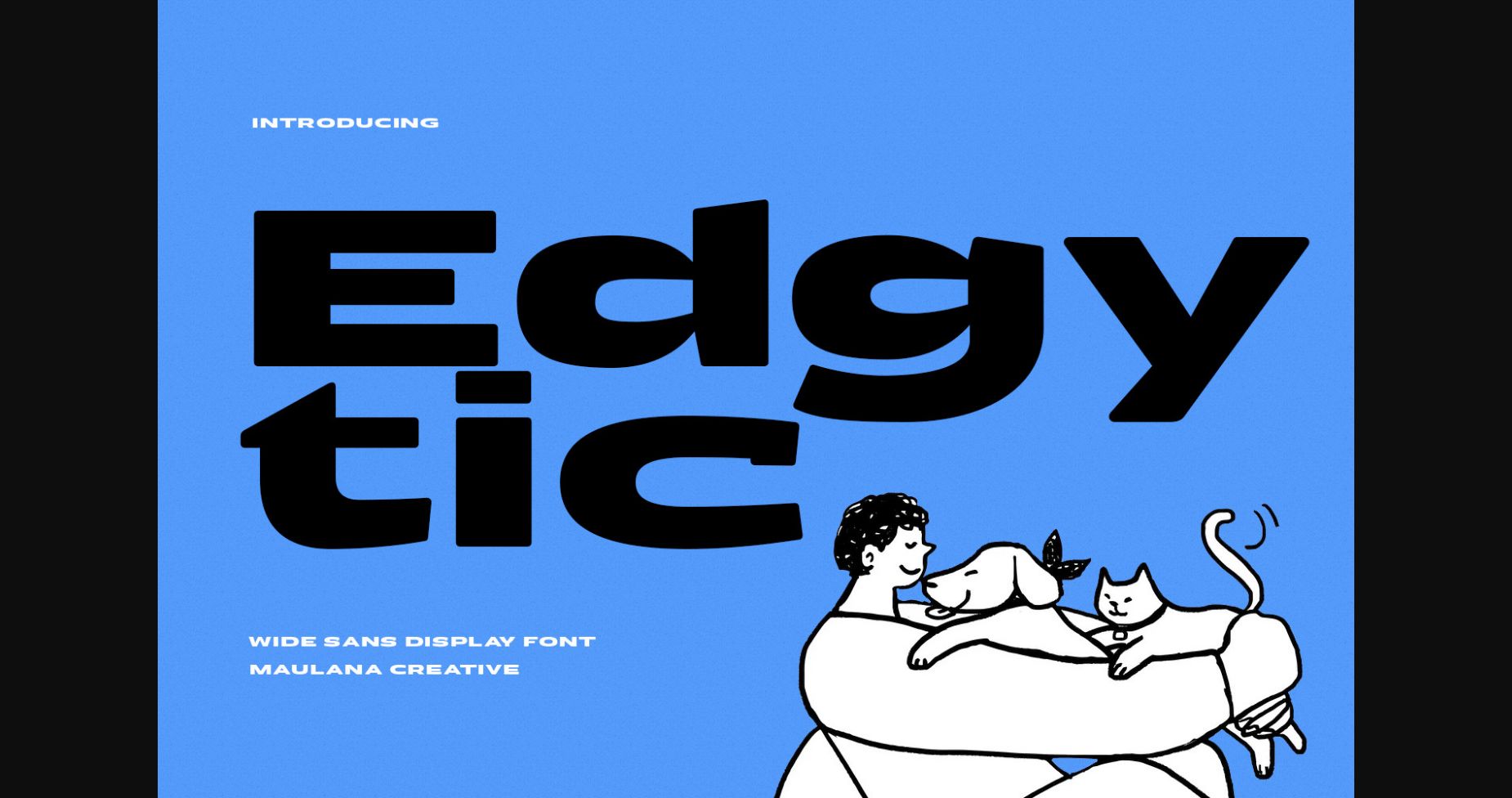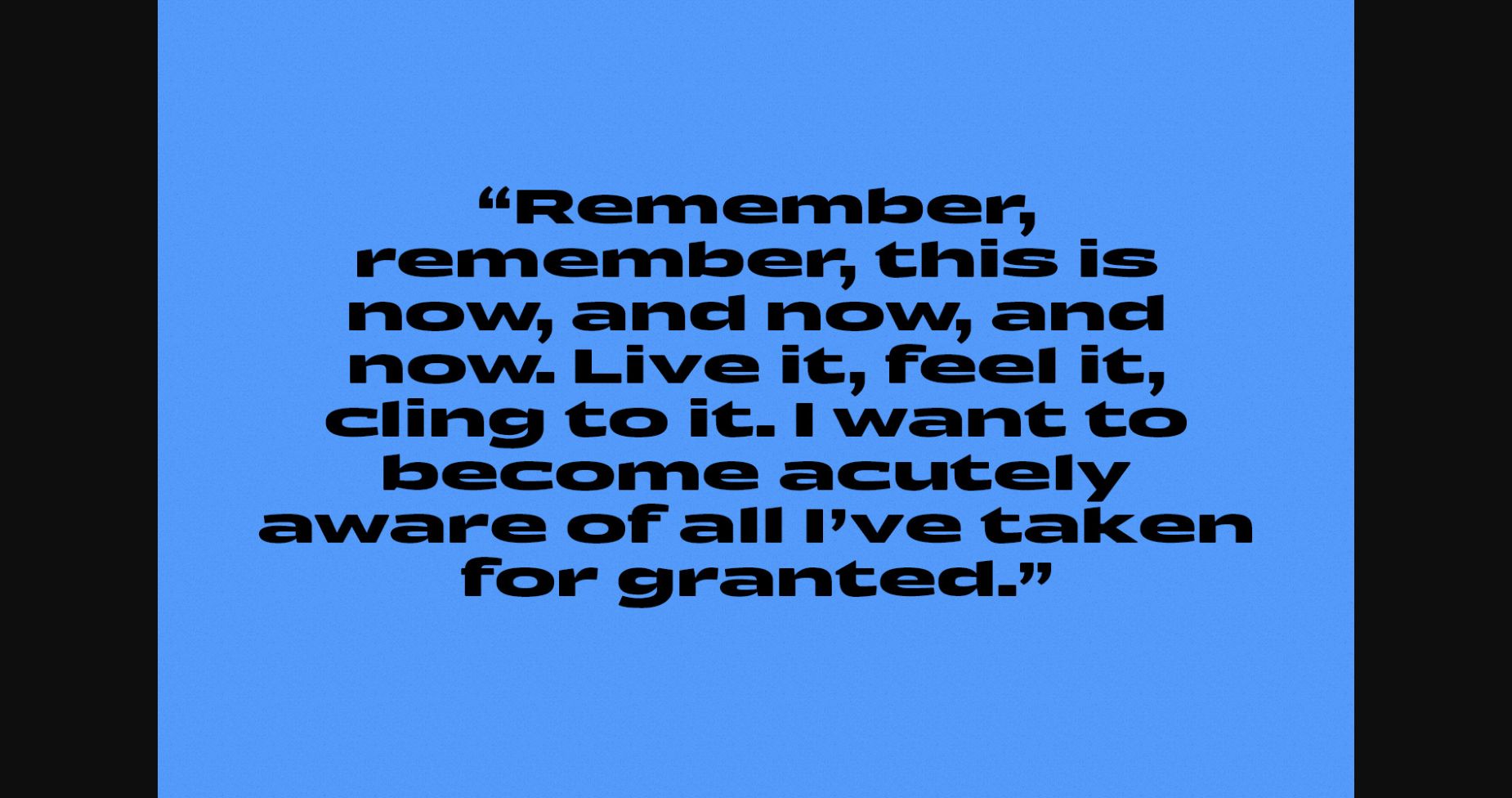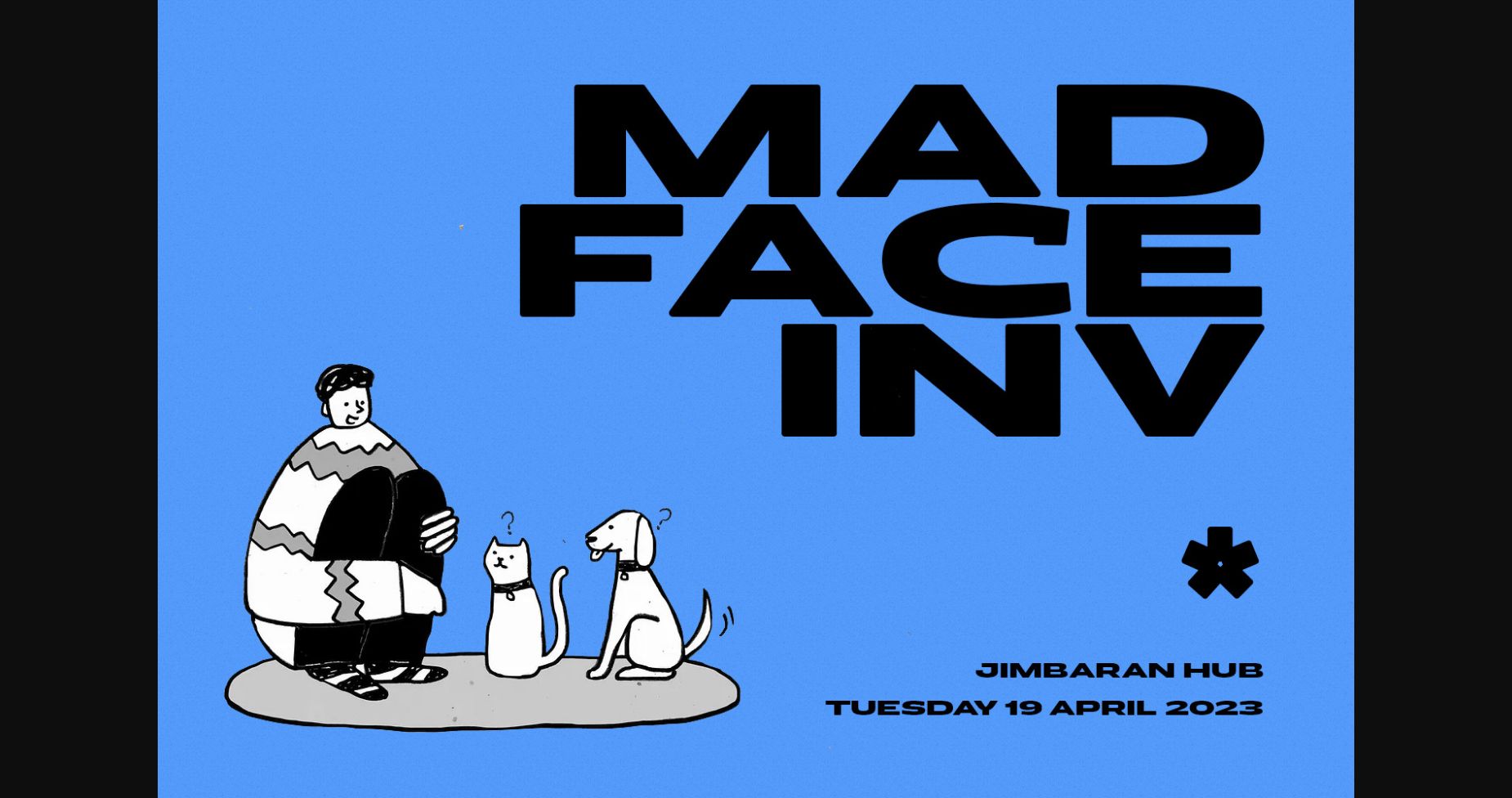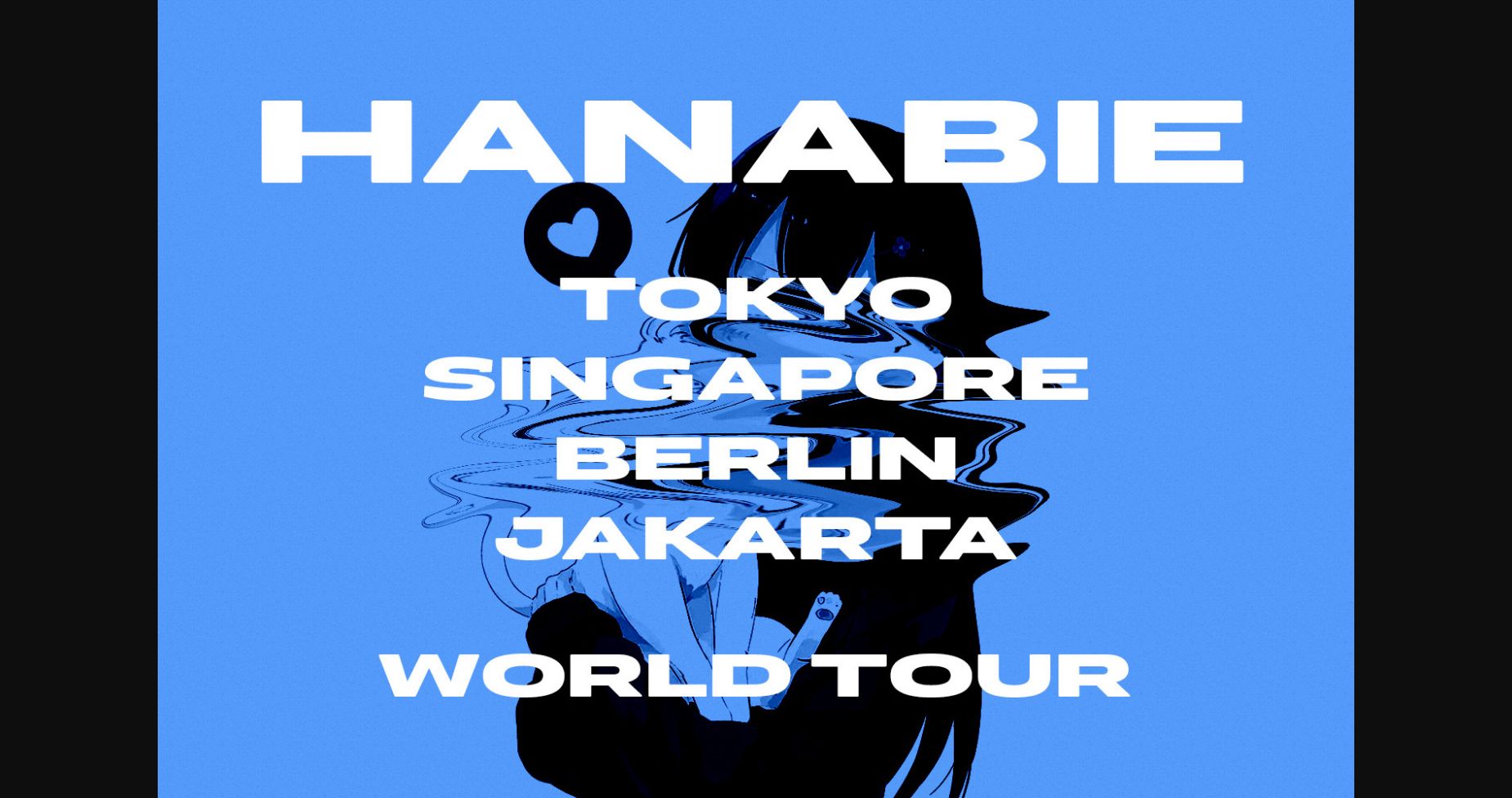
About Edgytic Font
Edgytic is a bold and sturdy sans-serif font that captures the essence of industrial design. With its wide, blocky letters and hard edges, it evokes a sense of strength and durability. This font is perfect for modern and minimalistic designs, especially those related to technology, engineering, or construction. Edgytic commands attention and demands to be noticed.